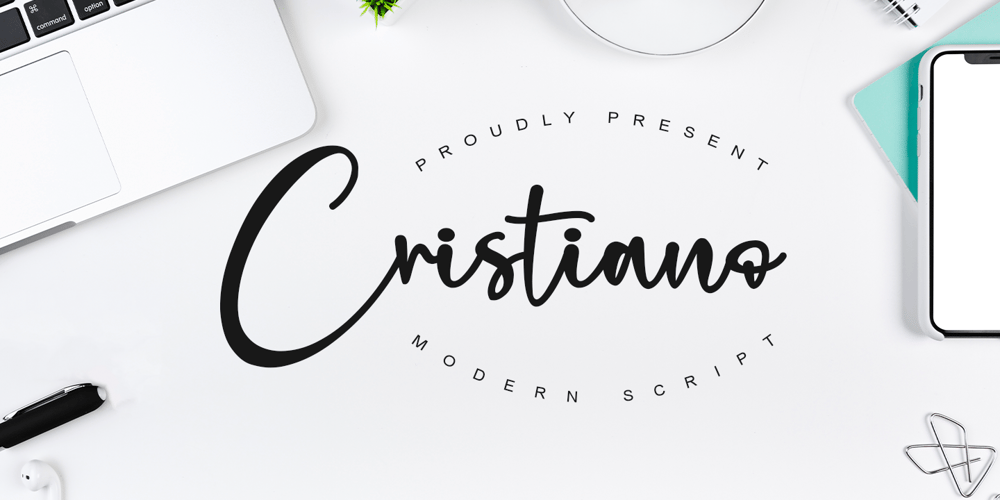
Cristiano Font Family was designed by Stefani Tri Rosa Setiati Christiana and published by Stefani Letter. Cristiano contains 2 styles and family package options. Cristiano is a minimalist script font designed with an incredibly modern, beautiful feel and elegant. Fall in love with its incredibly versatile style and use it to create gorgeous wedding invitations, beautiful stationary art, eye-catching social media posts, and much more! This font is PUA encoded which means you can access all of the cute glyphs with ease! It also features a wealth of including ligatures.